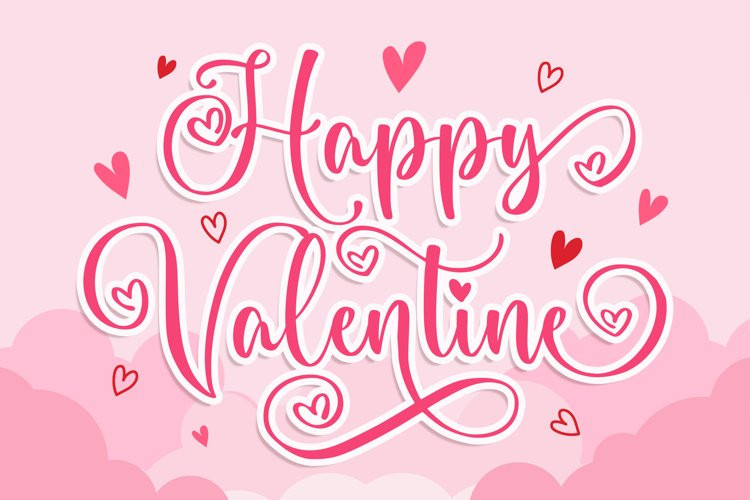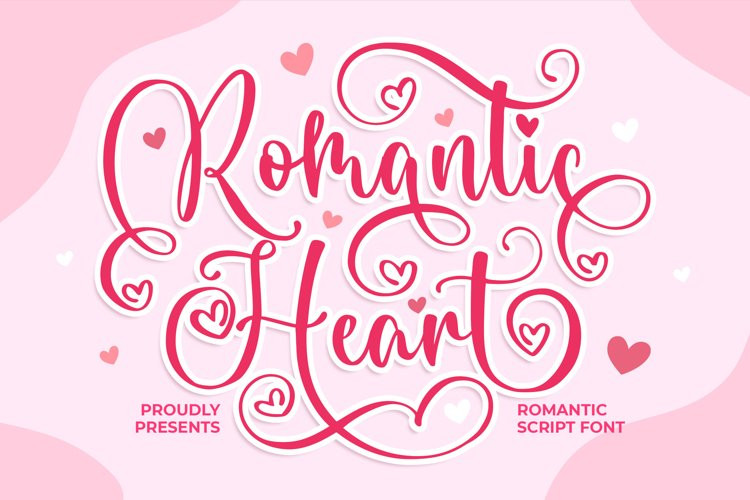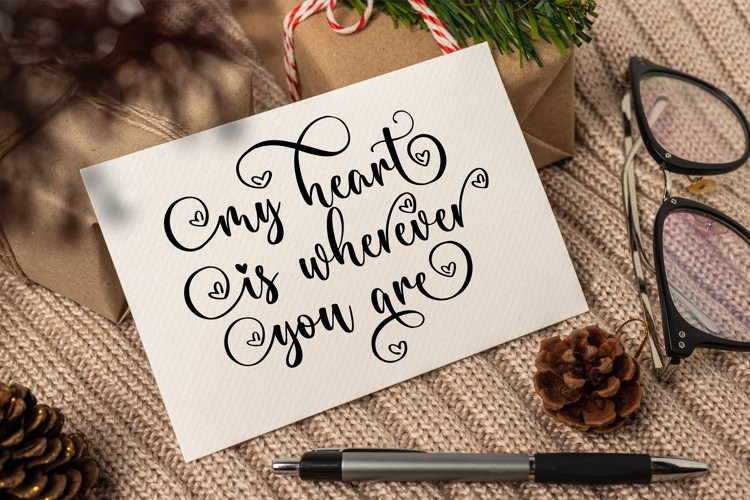
Romantic Heart Font
Introducing of our new product the name is Romantic Heart Script Font. Romantic Heart inspired by bouncy script style this font is a fun theme very good for display, tshirt design, craft, quote sign, logotype and etc